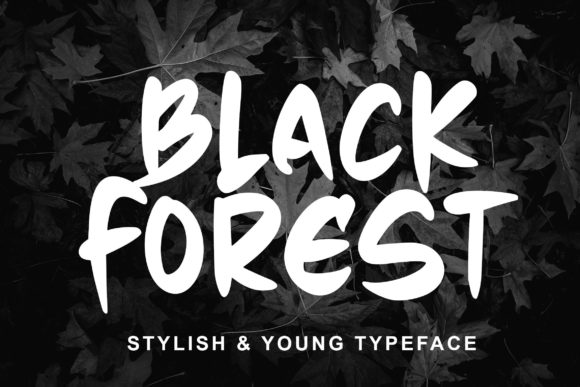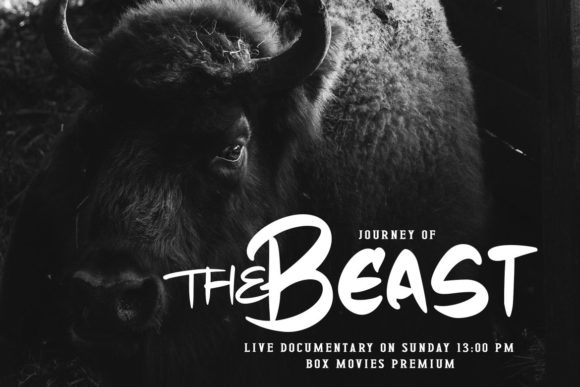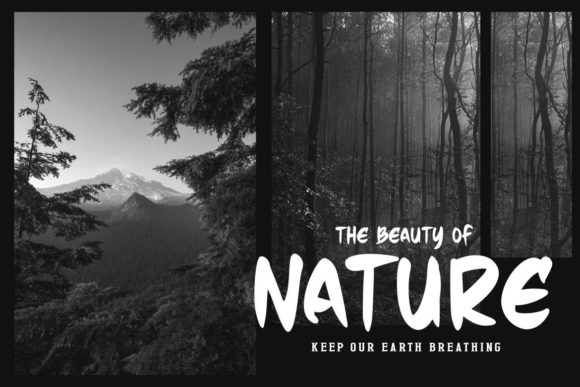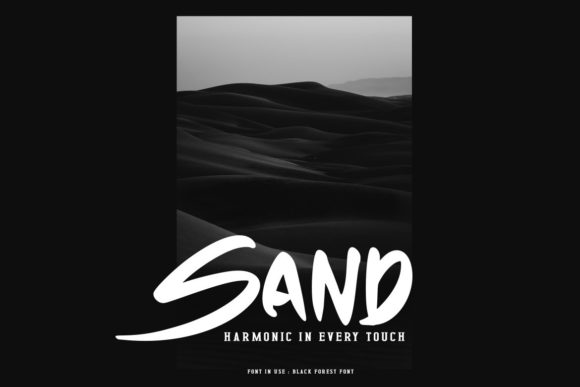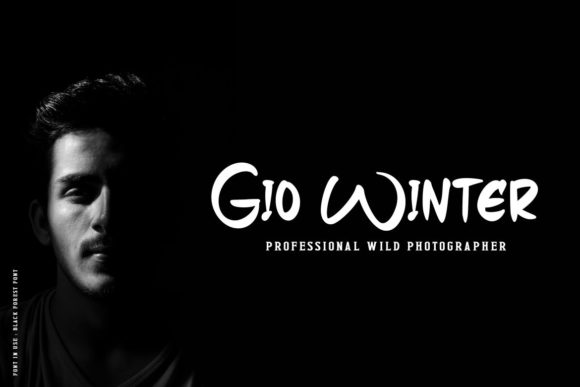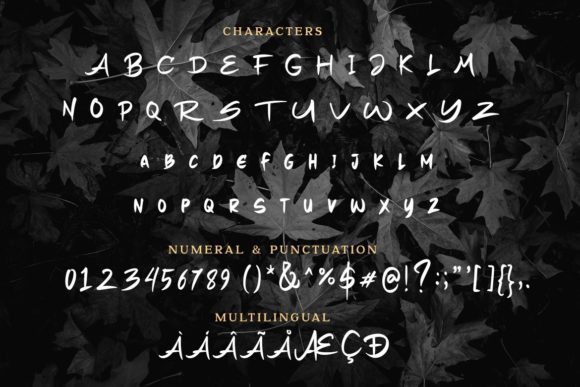
Black Forest Font
About Black Forest Font
Black Forest is a cool, brushed and trendy handwritten font. It will look stunning on any poster flyer or print.